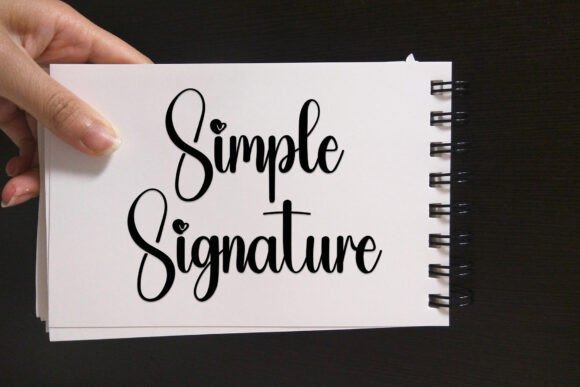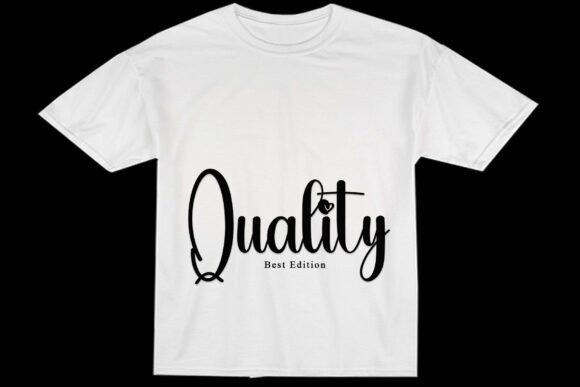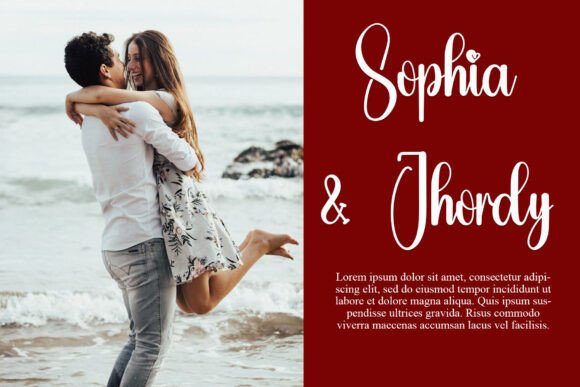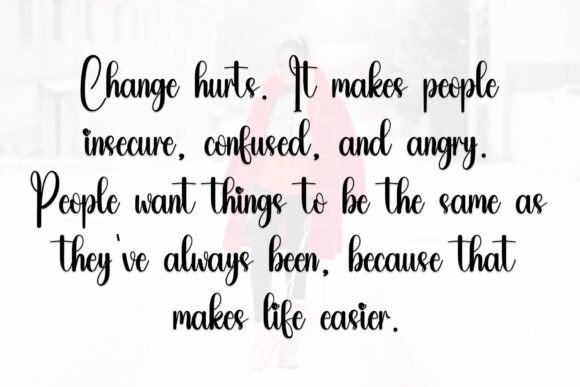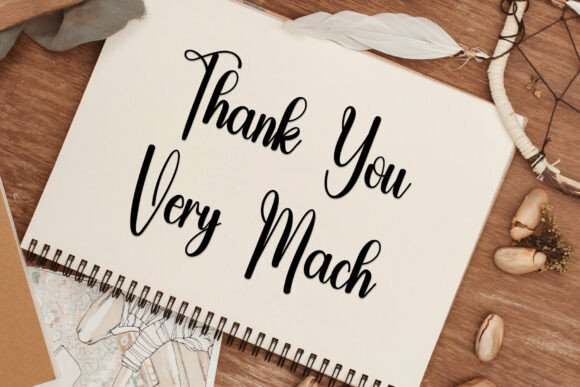
Introducing Happy Siblings Font: The Perfect Choice for Designers and Crafters
Are you looking for a font that can add a personal touch to your designs? Look no further than Happy Siblings Font! This lovely and timeless handwritten font is perfect for creating eye-catching logos, branding, and quotes that will make your design come alive. In this article, we’ll explore the features and benefits of Happy Siblings Font and why it’s a must-have for designers and crafters.
What is Happy Siblings Font?
Happy Siblings Font is a beautiful handwritten font that is designed to bring a touch of elegance and sophistication to your designs. Every letter has a unique and beautiful touch, making it perfect for creating custom logos, branding, and quotes. The font is highly versatile and can be used for a wide range of design projects, from digital marketing materials to print designs.
Key Features of Happy Siblings Font
- Unique and Beautiful Touch: Each letter in Happy Siblings Font has a unique and beautiful touch, making it perfect for creating eye-catching designs.
- Timeless Design: The font has a timeless design that will never go out of style, making it a great investment for designers and crafters.
- Highly Versatile: Happy Siblings Font can be used for a wide range of design projects, from digital marketing materials to print designs.
- Easy to Read: The font is highly legible, making it perfect for creating quotes, posters, and other designs where readability is important.
Benefits of Using Happy Siblings Font
There are many benefits to using Happy Siblings Font in your designs. Here are just a few:
- Stand Out from the Crowd: With Happy Siblings Font, you can create unique and eye-catching designs that will help you stand out from the crowd.
- Professional Look and Feel: The font has a professional look and feel, making it perfect for creating branding and marketing materials.
- Easy to Customize: Happy Siblings Font is highly customizable, making it easy to adjust the font to fit your design needs.
- Great for Crafters: The font is also perfect for crafters who want to add a personal touch to their DIY projects.
Happy Siblings Font is a beautiful and versatile handwritten font that is perfect for designers and crafters. With its unique and beautiful touch, timeless design, and high level of legibility, it’s the perfect choice for creating eye-catching logos, branding, and quotes. Whether you’re a professional designer or a DIY crafter, Happy Siblings Font is a must-have font that will help you take your designs to the next level.